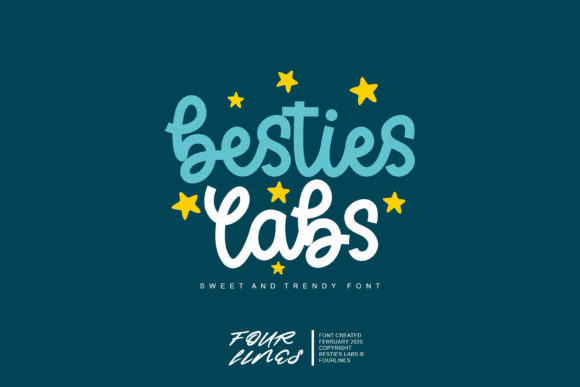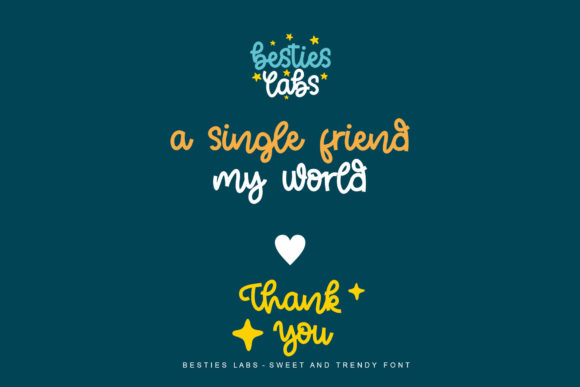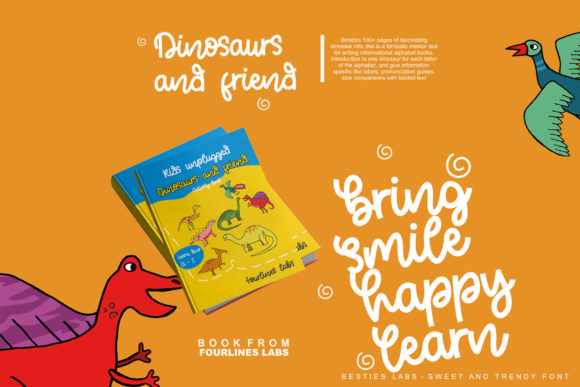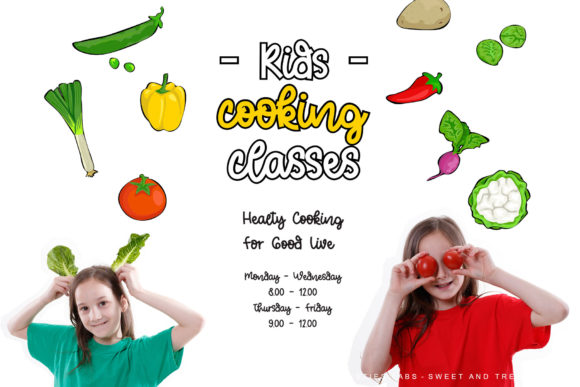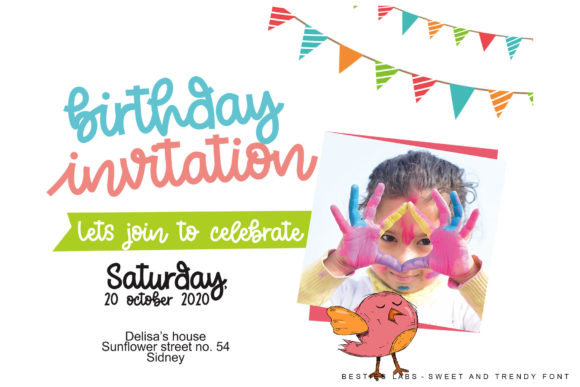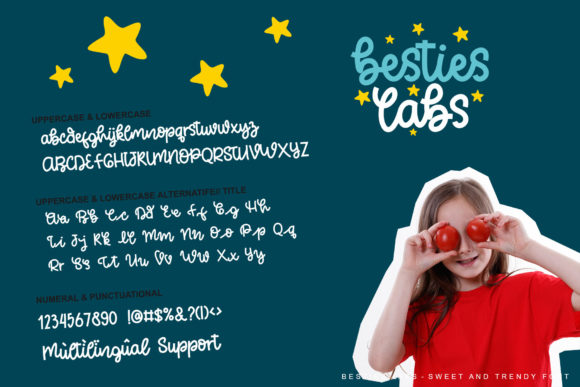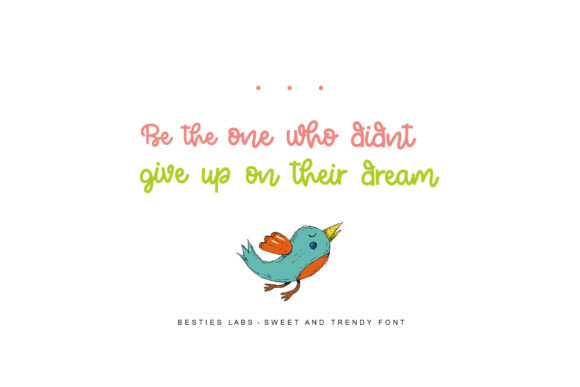
Besties Labs Font
About Besties Labs Font
Besties Labs is a sweet and trendy script font with an incredibly modern feel. Fall in love with its incredibly versatile style and use it to create gorgeous wedding invitations, beautiful stationary art, eye-catching social media posts, and much more!